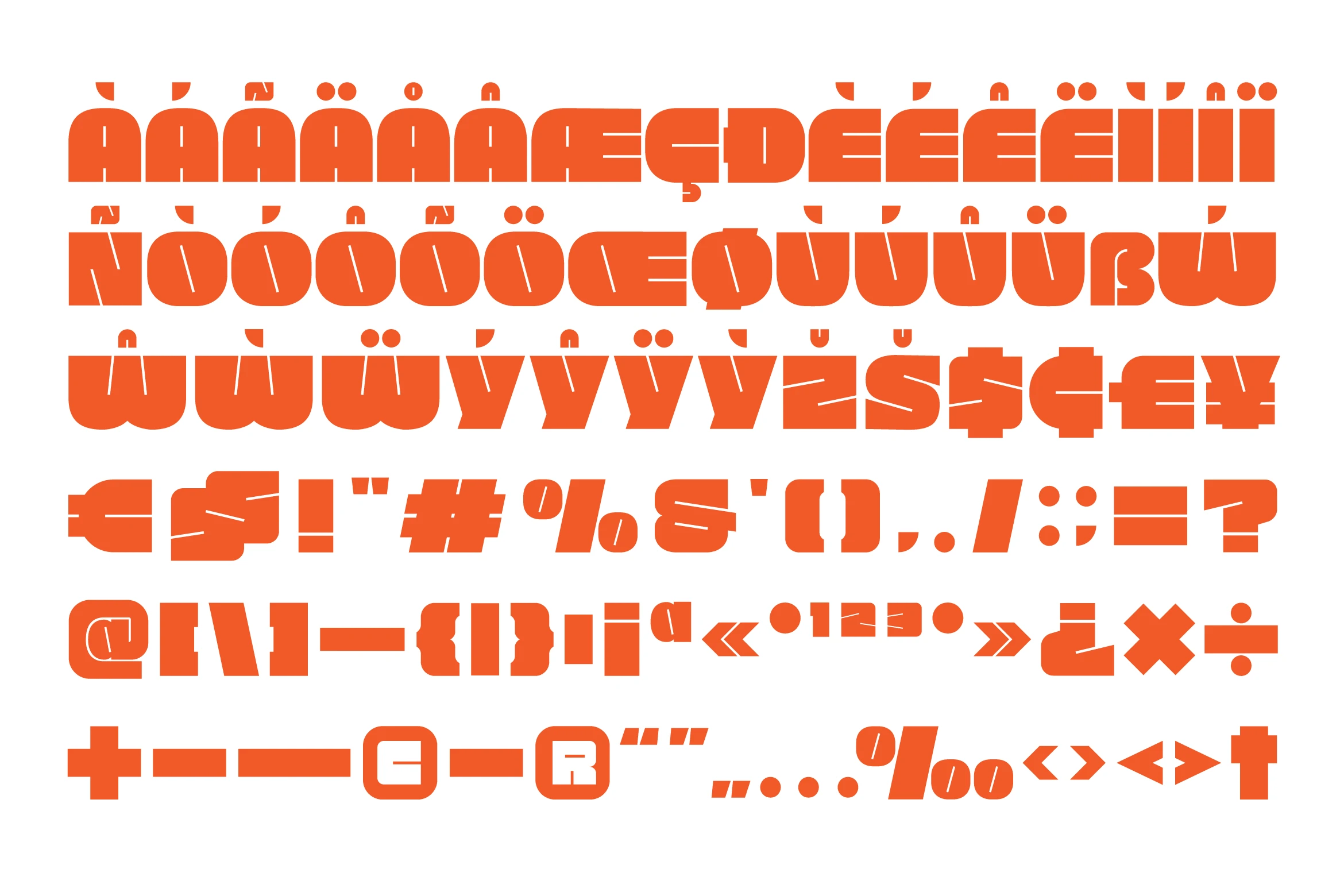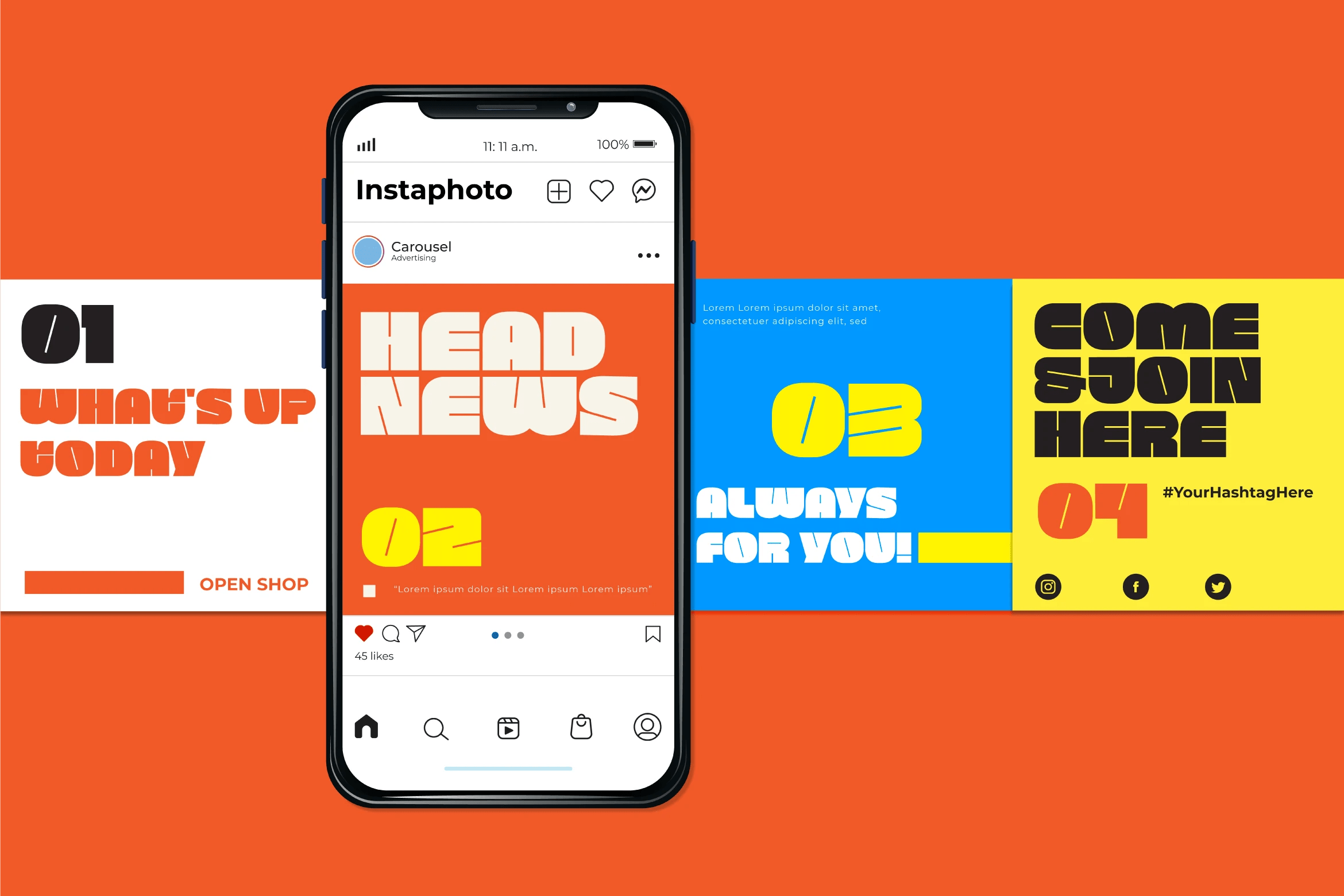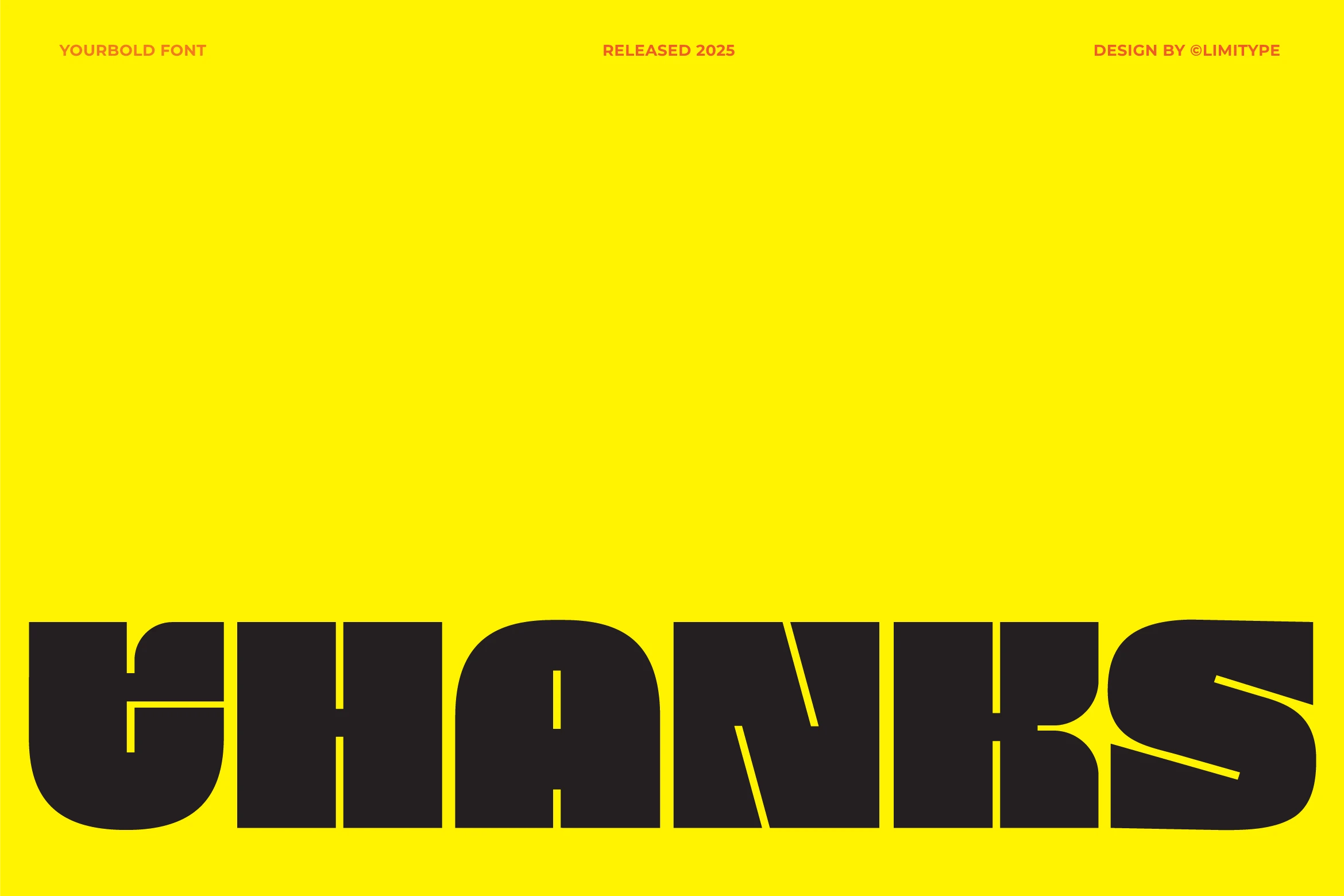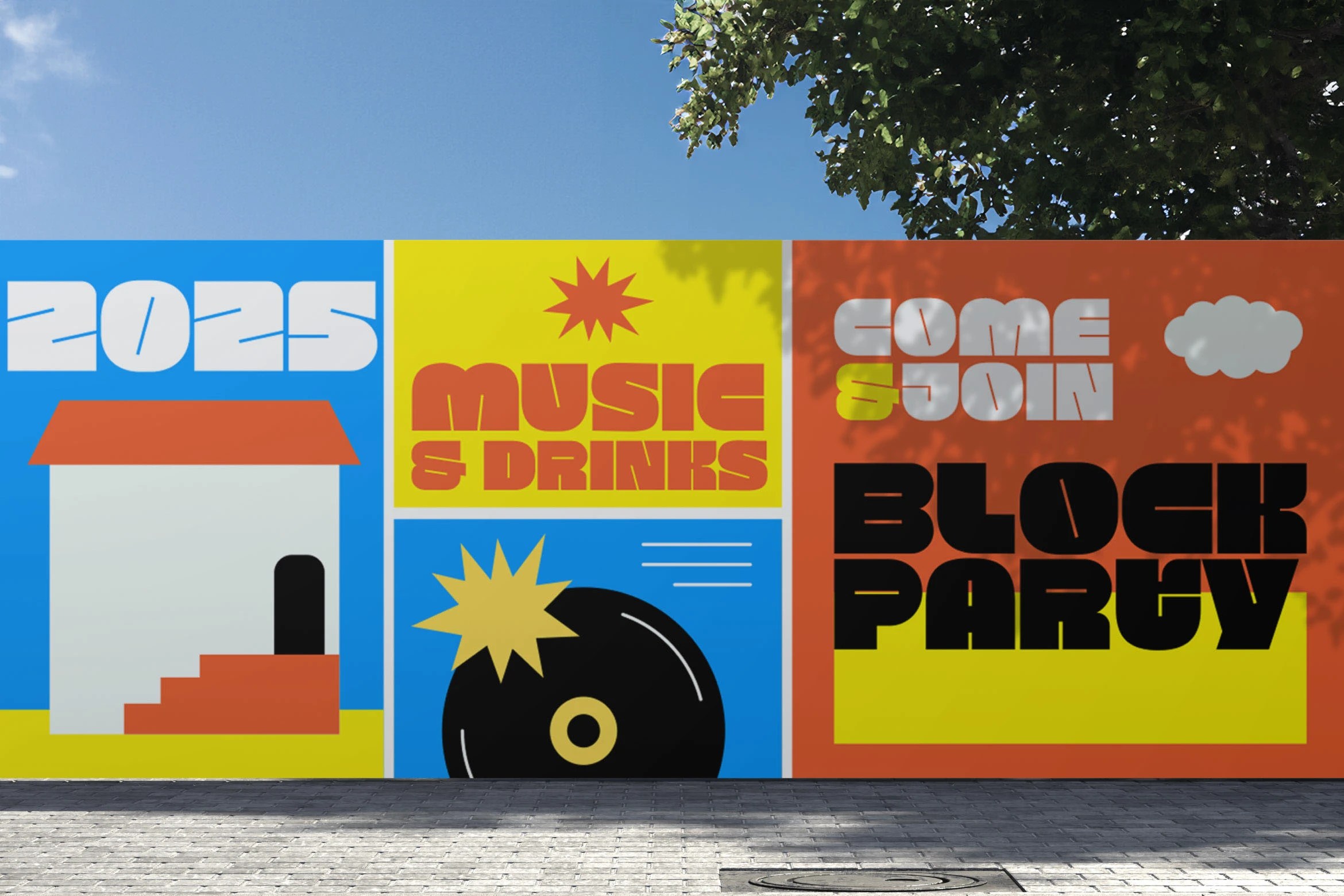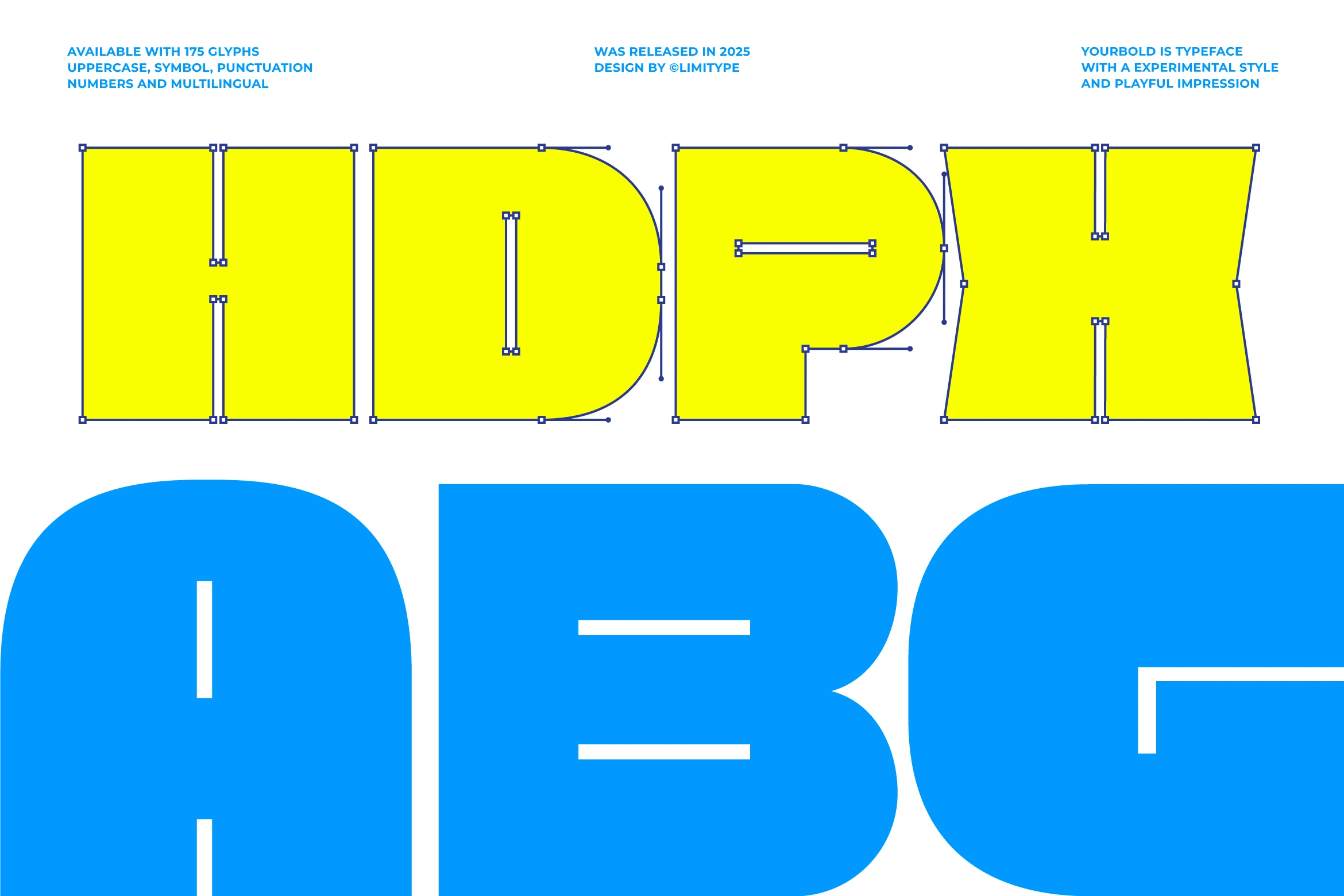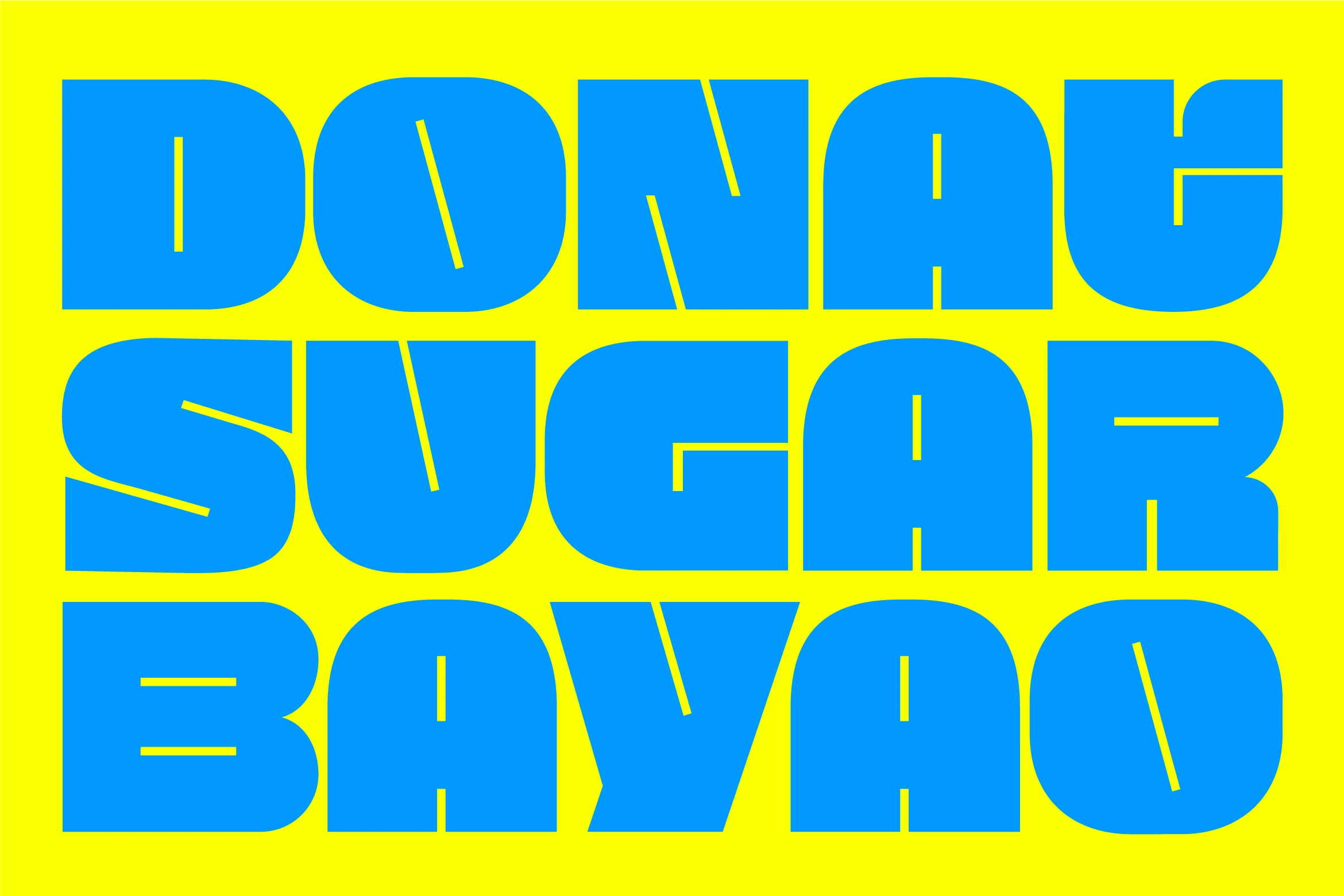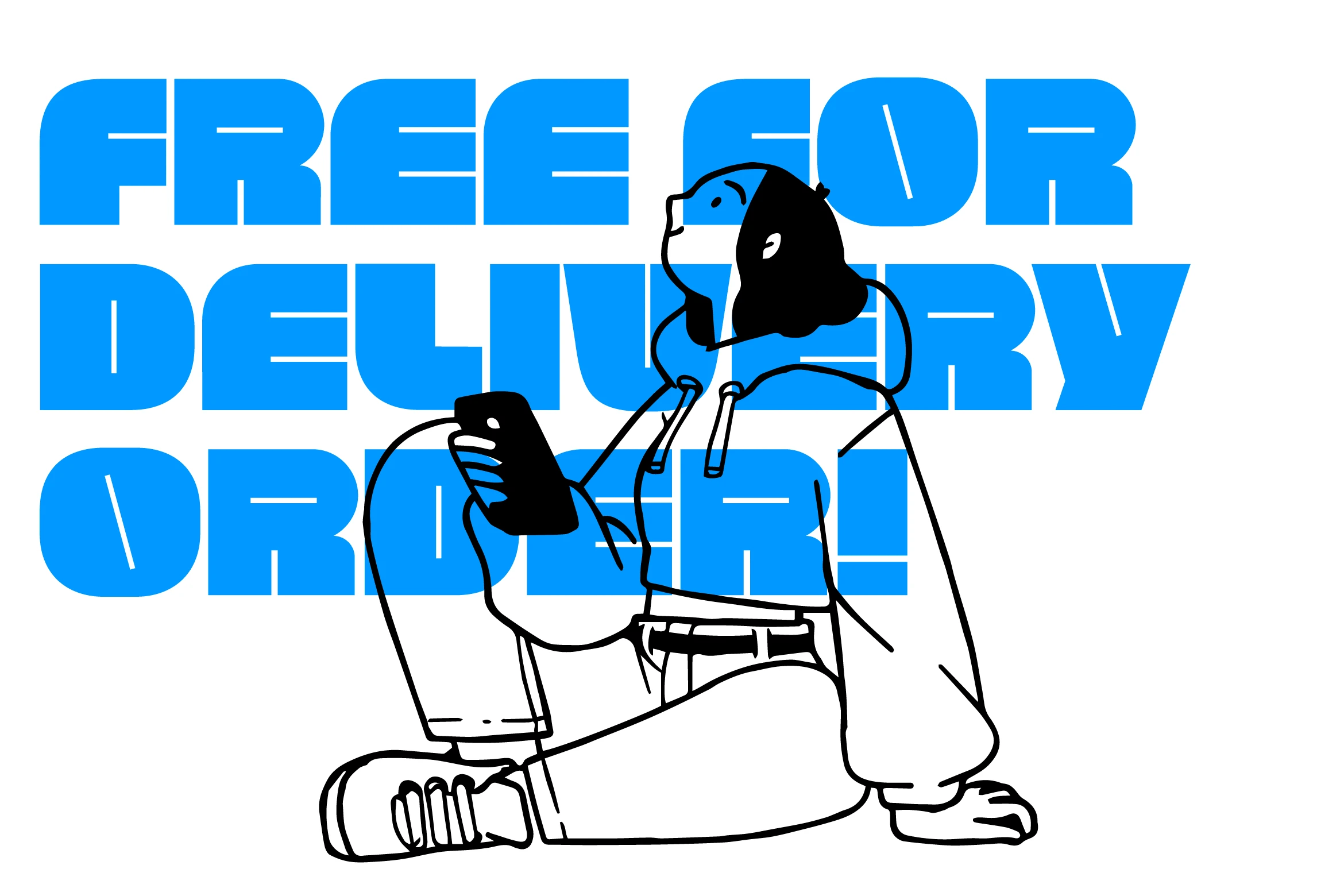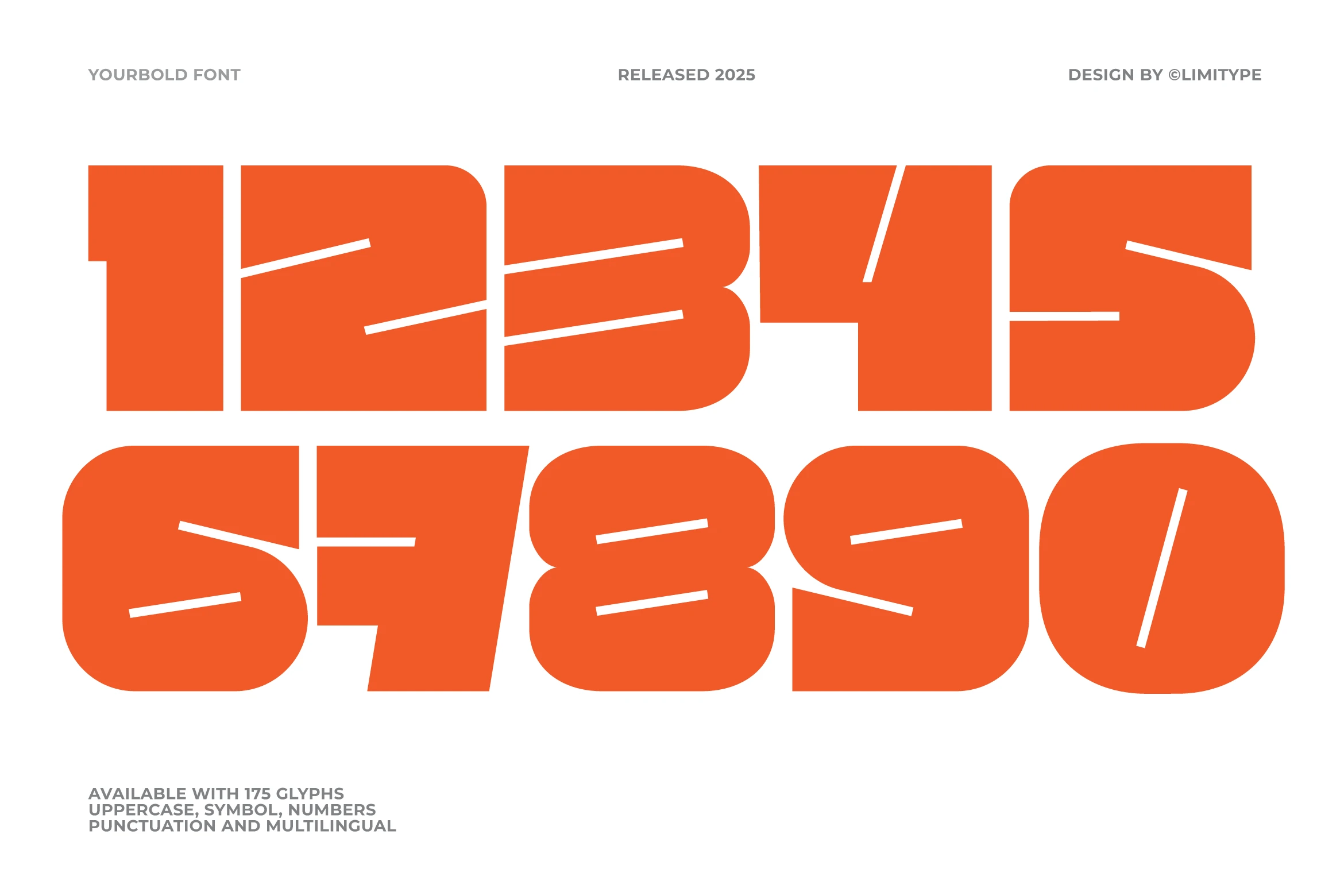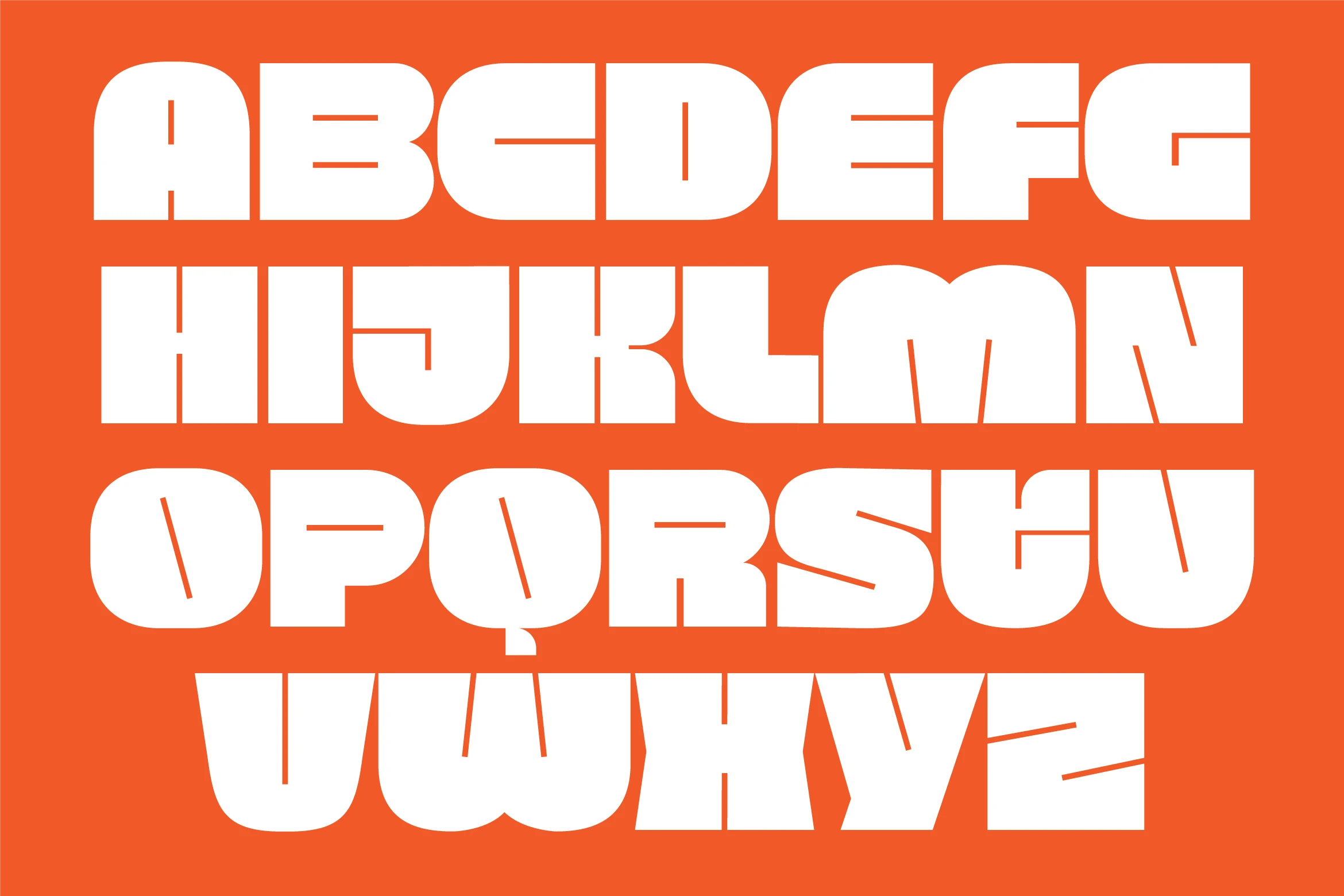
Yourbold Font
Yourbold Font is a modern and powerful display typeface designed to grab attention in any design. With its bold and strong letterforms, this font is perfect for branding, headlines, posters, logos, packaging, and social media content. Its geometric and professional style makes it ideal for delivering messages with confidence and a contemporary feel.
Yourbold Font Easy to read: Clear visibility at any size.